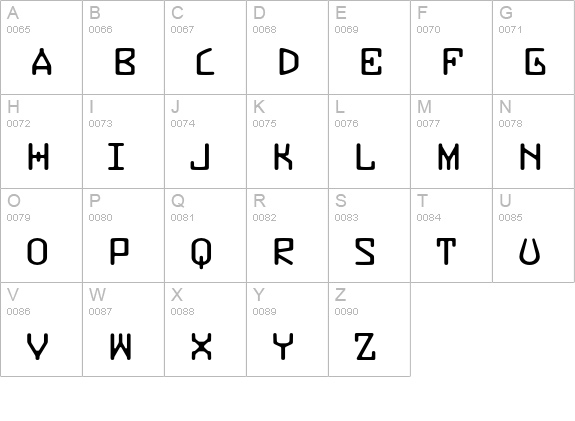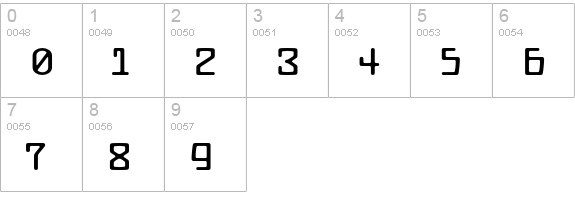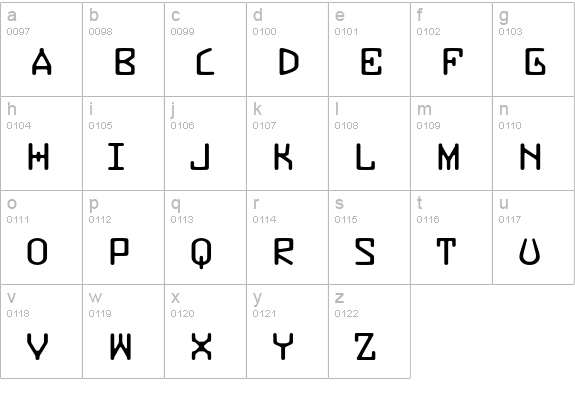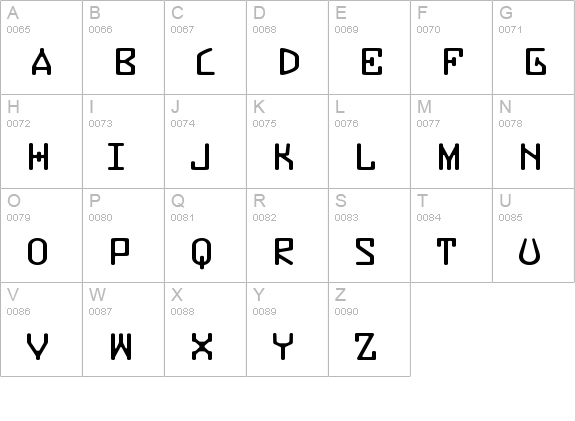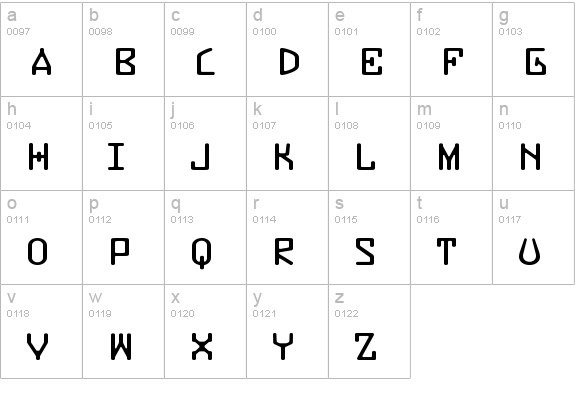
Buzzer Three Std font is a modern and stylish typeface that will add a touch of sophistication to any design project. With its sharp lines and bold presence, this font commands attention and delivers a strong visual impact. Perfect for headlines, logos, posters, and more, Buzzer Three Std is a versatile choice for both print and digital applications. The best part? Buzzer Three Std is available for free download at FontsMarket.com. Simply visit the website and start using this striking font in your designs today. Don't miss out on the opportunity to enhance your creative projects with the unique flair of Buzzer Three Std font – get it now for free!